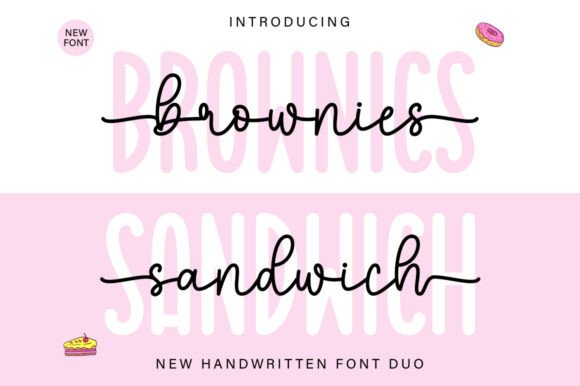
Brownies Sandwich Duo Font: Elevate Your Designs with a Romantic Touch
In the world of typography, fonts play a crucial role in conveying emotions and setting the tone for various designs. If you’re looking for a stylish and delicate duo font that can add a romantic touch to your creations, look no further than Brownies Sandwich Duo. This beautiful font combination consists of a sans serif and script font, making it suitable for a wide spectrum of applications, from greeting cards to headlines.
What is Brownies Sandwich Duo Font?
Brownies Sandwich Duo Font is a carefully crafted duo font that pairs a clean sans serif font with an elegant script font. This combination allows designers to create stunning visual effects, perfect for those who want to add a touch of romance to their designs. The font is designed to be versatile, making it ideal for use in various projects, including:
- Greeting cards
- Headlines
- Logos
- Branding materials
- Digital and print media
Key Features of Brownies Sandwich Duo Font
Brownies Sandwich Duo Font comes with several key features that make it an excellent choice for designers:
- PUA Encoded: The font is PUA (Private Use Area) encoded, which means you can access all the glyphs and ligatures with ease. This feature makes it simple to use the font and get the most out of its design.
- Sans Serif and Script Font: The duo font combination includes both a clean sans serif font and an elegant script font, allowing you to create stunning visual effects.
- Romantic Touch: The font is designed to add a romantic touch to your designs, making it perfect for projects that require a touch of elegance.
Benefits of Using Brownies Sandwich Duo Font
Using Brownies Sandwich Duo Font in your designs comes with several benefits:
- Versatility: The font is suitable for a wide range of applications, from greeting cards to headlines, making it a great addition to your font library.
- Elegance: The font’s elegant design adds a touch of sophistication to your designs, making them stand out.
- Easy to Use: The PUA encoding makes it easy to access all the glyphs and ligatures, saving you time and effort.
Tips for Getting the Most Out of Brownies Sandwich Duo Font
To get the most out of Brownies Sandwich Duo Font, consider the following tips:
- Experiment with Font Combinations: Try pairing the sans serif font with the script font to create a unique visual effect.
- Play with Glyphs and Ligatures: Use the PUA encoding to access all the glyphs and ligatures, adding a personal touch to your design.
- Use it for Branding: The font’s elegant design makes it perfect for branding materials, such as logos and business cards.
Brownies Sandwich Duo Font is a stylish and delicate duo font that can elevate your designs with a romantic touch. With its versatility, elegance, and ease of use, this font is perfect for a wide range of applications. Whether you’re a designer, artist, or DIY enthusiast, Brownies Sandwich Duo Font is a great addition to your font library.